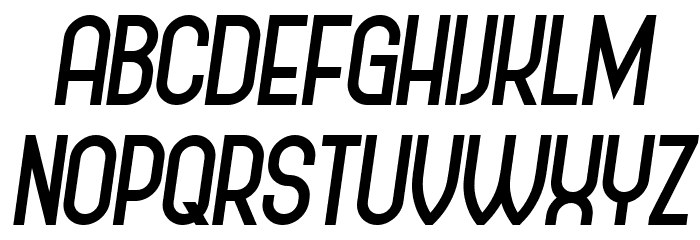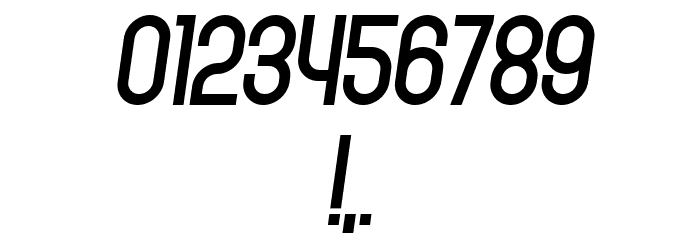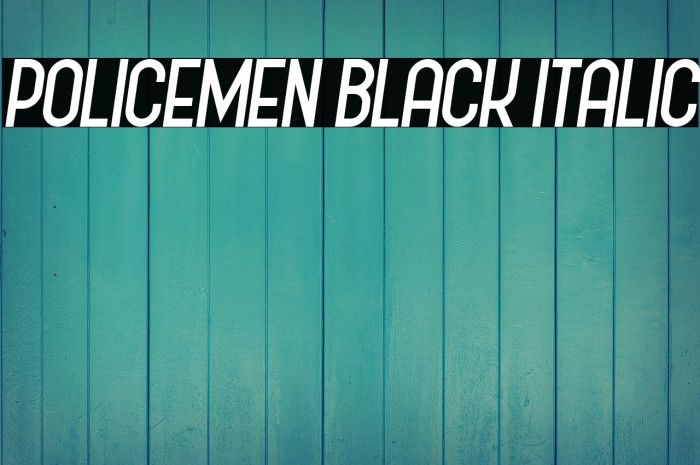
Policemen Black Italic Font
This font features a bold and italicized style, characterized by its strong and dynamic appearance. The letters are slightly condensed, giving it a compact look while maintaining readability. The strokes are consistent in thickness, providing a uniform and cohesive appearance. The slanted design adds a sense of motion and energy, making it suitable for attention-grabbing headlines or impactful statements. The numbers and special characters are designed to match the bold and italicized style, ensuring a harmonious overall look.
Bold, italicized font with a dynamic and compact style.